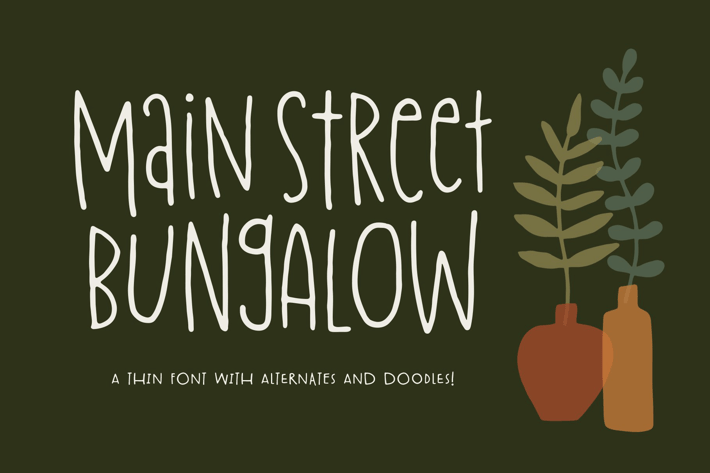
Main Street Bungalow Font
Main Street Bungalow is a thin, condensed font that comes with an alternate set of letters to give your designs a hand-drawn look. Also included are 52 mid-century style doodles that can be accessed using uppercase and lowercase letters with the Main St Bungalow Doodles font.